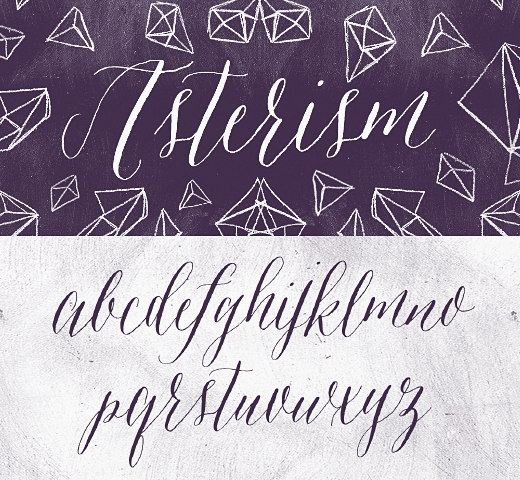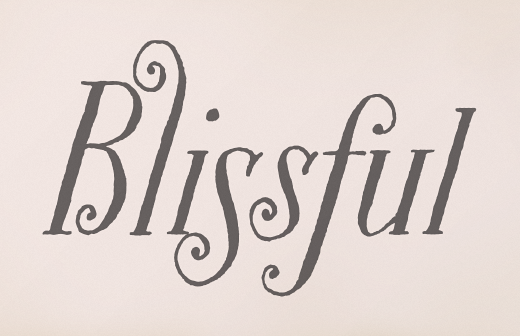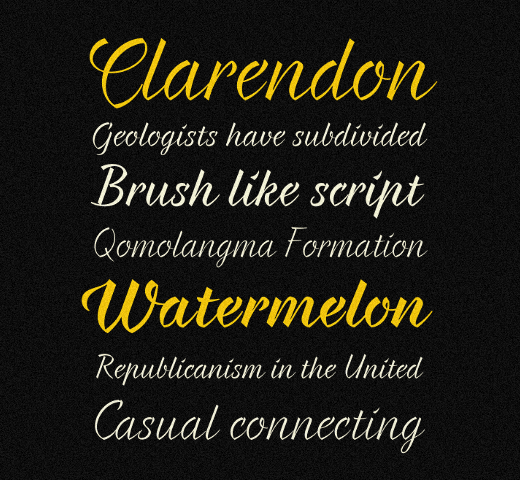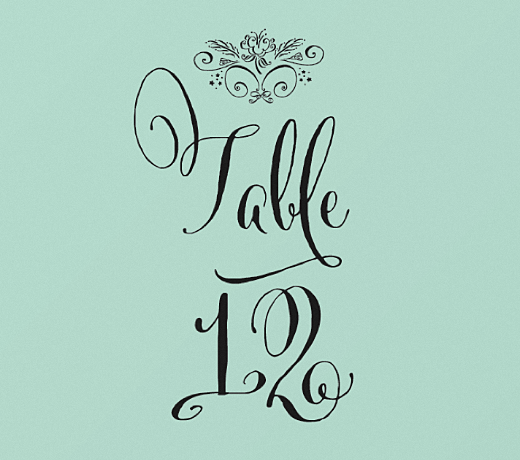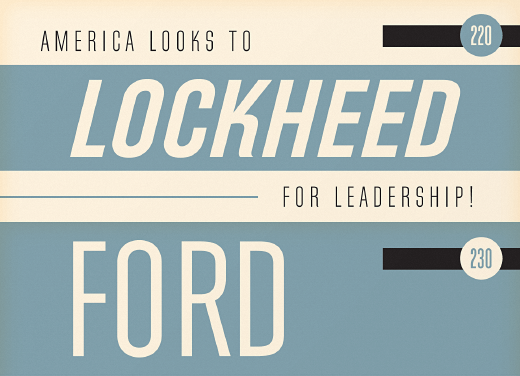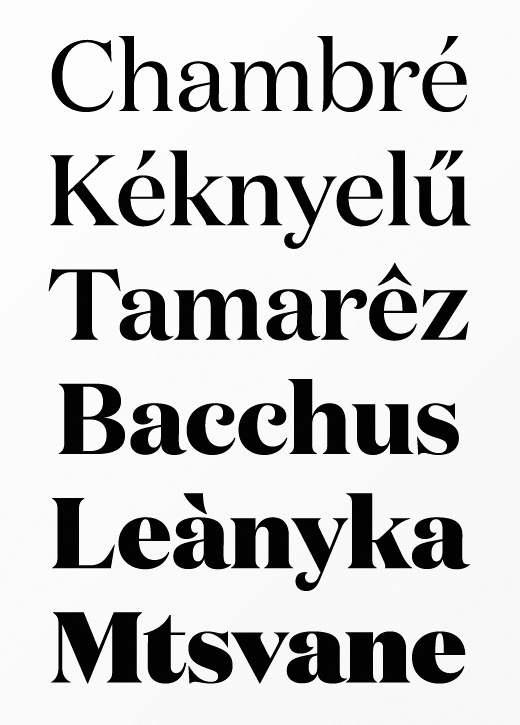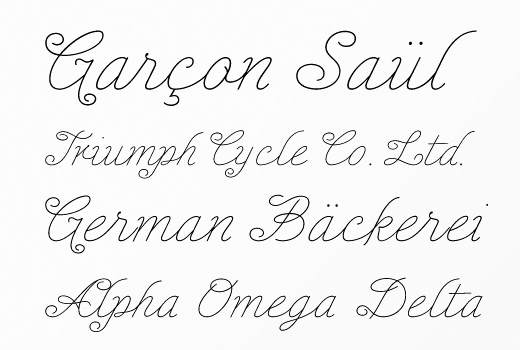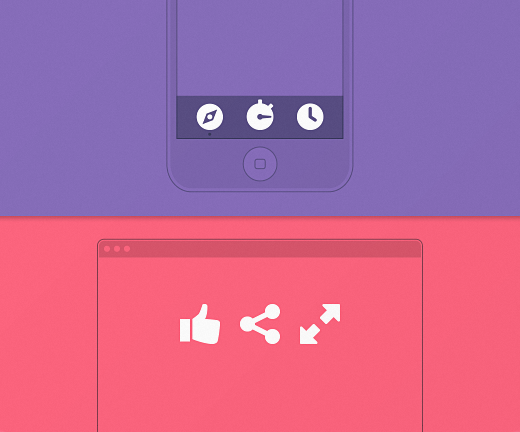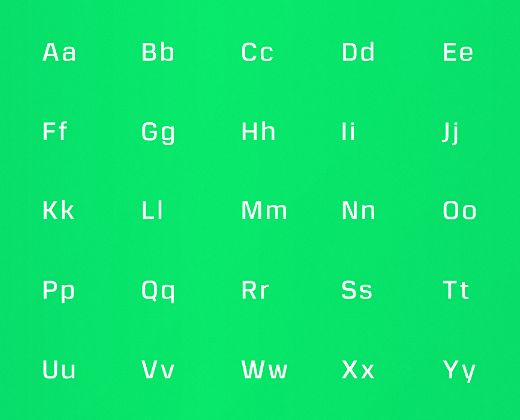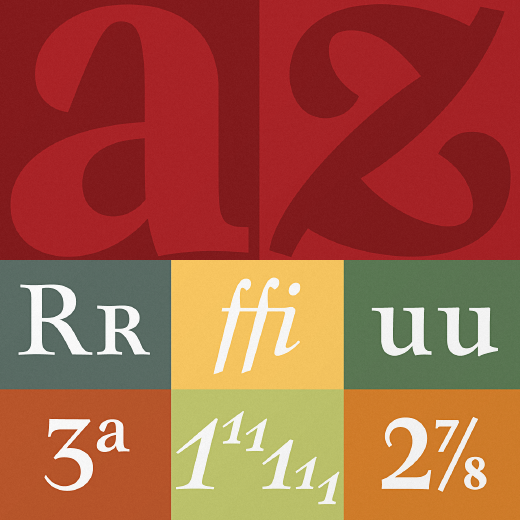
20 of the most beautiful typefaces released last month
We’ve gathered another fantastic mix of type for you this month — an elegant serif from Klim, a brush flavoured script by Fontfabric , a modern classic from Linotype, an modular family by Typegroup, and many more — let’s get started!
Laura Worthington: Charcuterie
A large and rare undertaking — a family of ten distinct yet related typefaces, many of which have their own font families and three decorative / ornamental typefaces.
Klim: Domaine
Contemporary, curvaceous Latin detailing on a Scotch skeleton.
Debi Sementelli Type Foundry: Cantoni
A hand-lettered family with a variety of standard and alternate characters that play together well.
Fontfabric: Braxton
A brush flavoured script family characterized by excellent legibility in both web & print.
Linotype: Metro Nova
The long awaited update of the 1929 modern classic by W.A. Dwiggins.
Symbolset: SS Geomicons Squared
Neatly rounded corners amplify the geometry of the forms with quick turns and an easy confidence.
Great Lakes Lettering: Asterism
A calligraphy style font with a moving baseline and lots of shining personality.
The Northern Block: Gunar
Precise curves are met with straight lines and tapered angles to produce a fresh, technical typeface.
PintassilgoPrints: Brush Up
Swiftly painted on paper and carefully translated into a font.
Typegroup: Noodge
An ultra-modular type family in three styles.
LeType: Only You Sexy
Handmade, stylish, modern, and multilingual.
Andinistas: ChefScript
Combines warmth and good humor.
Tart Workshop: Bookeyed Sadie
A big voice and powerful curves calling attention.
Wordshape: Cooper Italic Pro
The result of researching Cooper’s original drawings and series of engraved proofs.
PintassilgoPrints: Tremendous
Strong and somewhat rough, but absolutely warm-hearted.
Canada Type: Mauritius
Ten years or so after his unique treatment of garalde design with Trump Mediaeval, Georg Trump took on the transitional genre with Mauritius, which was to be his last typeface.
Insigne: Enocenta
A five weight script typeface that offers a variety of options.
Filmotype: Filmotype Hemlock
Owes its origins to classic sign painter showcard lettering.
Lettering Inc: Directors Gothic
Painstakingly developed from the original font glass masters from the 1930s.
Suitcase Type Foundry: Ladislav
A simple modular system of combined geometrical segments.